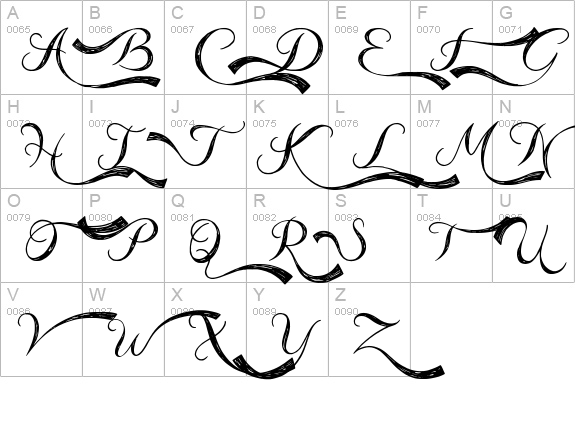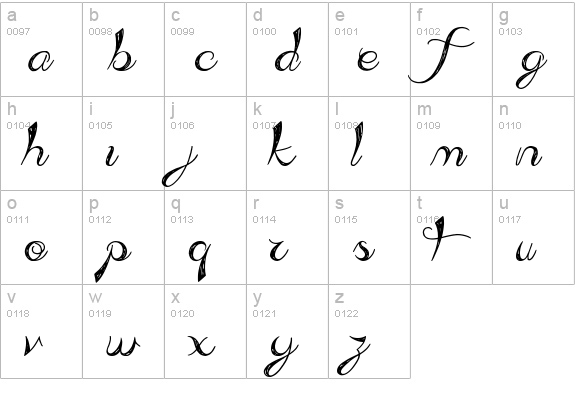
Introducing Carnival Day font, a whimsical and playful typeface that brings a burst of joy and excitement to any design project. This unique and vibrant font captures the spirit of a festive carnival celebration, with its lively curves and dynamic letterforms. Carnival Day font is perfect for creating eye-catching headlines, posters, invitations, and more. Its charming and energetic style will instantly grab attention and convey a sense of fun and merriment. Whether you're designing for a children's party, a summer fair, or any event that calls for a touch of cheerfulness, this font is a must-have in your creative arsenal. One of the best features of Carnival Day font is that it is freely available to download at FontsMarket.com. This means that you can easily add this delightful font to your collection without breaking the bank. Its accessibility allows both professional designers and casual enthusiasts alike to bring a touch of carnival magic to their projects. With a wide range of glyphs and alternate characters, Carnival Day font offers endless possibilities for customization and creativity. Mix and match different letter variations to create a truly unique and personalized design. The carefully crafted details and high-quality design make this font a joy to work with, ensuring exceptional results every time. So unleash your inner child and let the Carnival Day font transport you to a world of laughter and amusement. Download it for free at FontsMarket.com and let your imagination run wild with the endless creative possibilities that this font brings. Get ready to dazzle and delight with the vibrant and playful Carnival Day font.